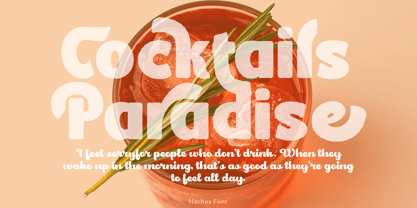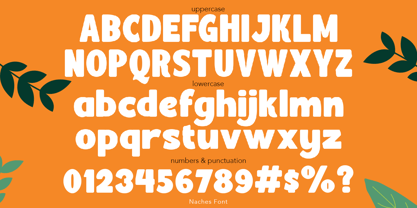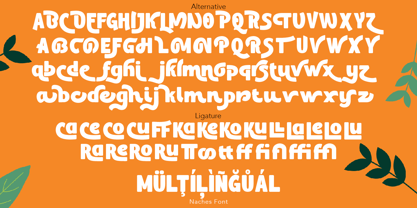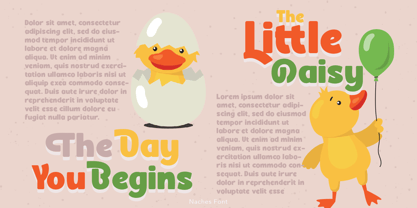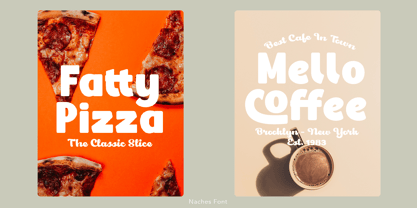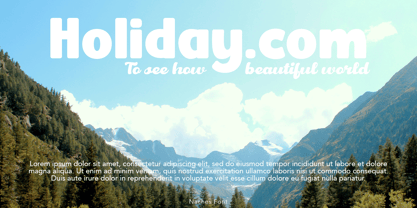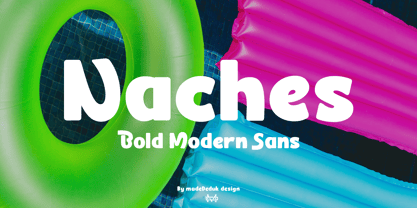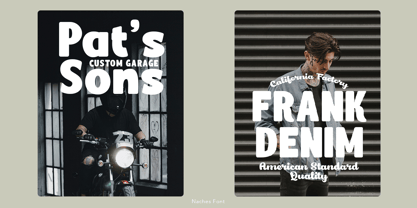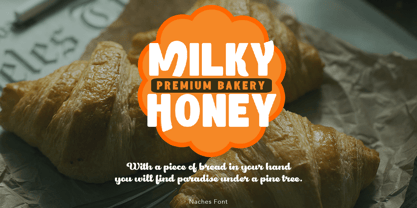
Naches
by madeDeduk
The Naches Font Family was designed by madededuk and published by madeDeduk. Naches contains 2 styles and family package options.
Naches is a Bold Modern font, come with single weight legible and expressive shapes. A lot of stylish alternates characters will makes this font suitable for your any project design. Use this font for any branding, product packaging, headline, invitation, fashion, label, poster, logo etc.